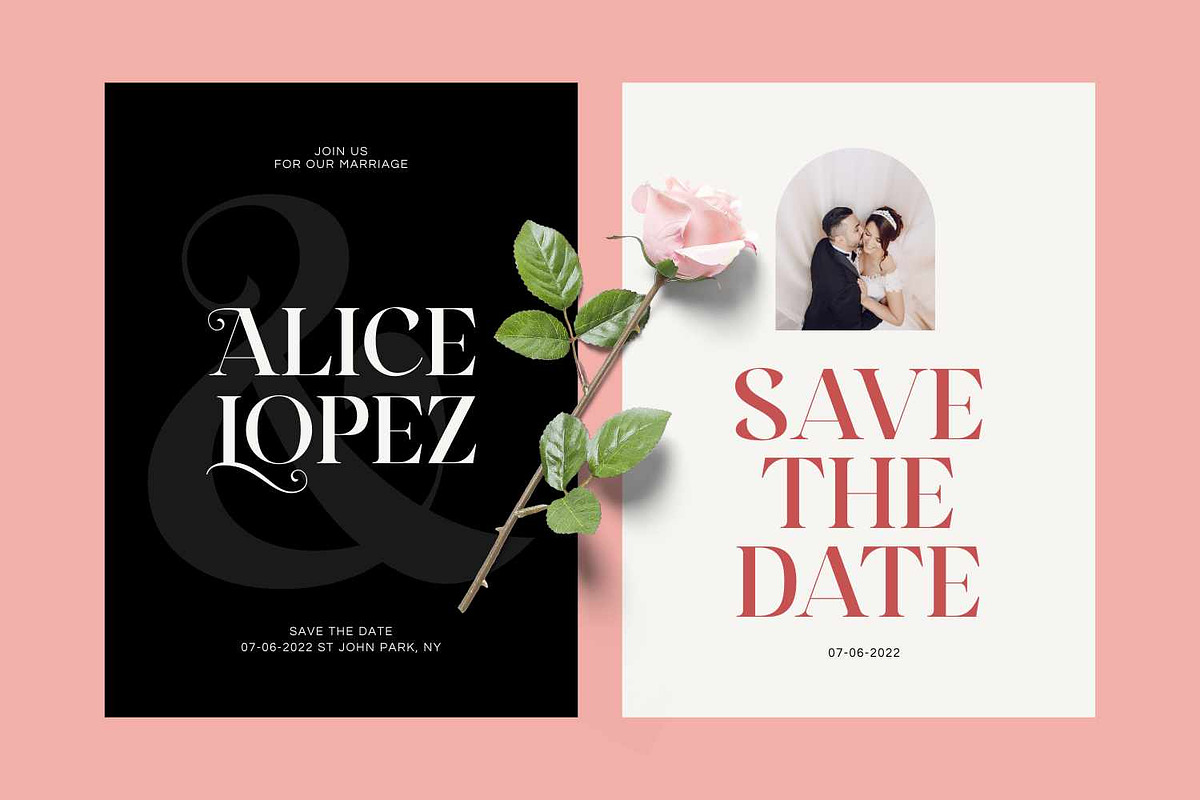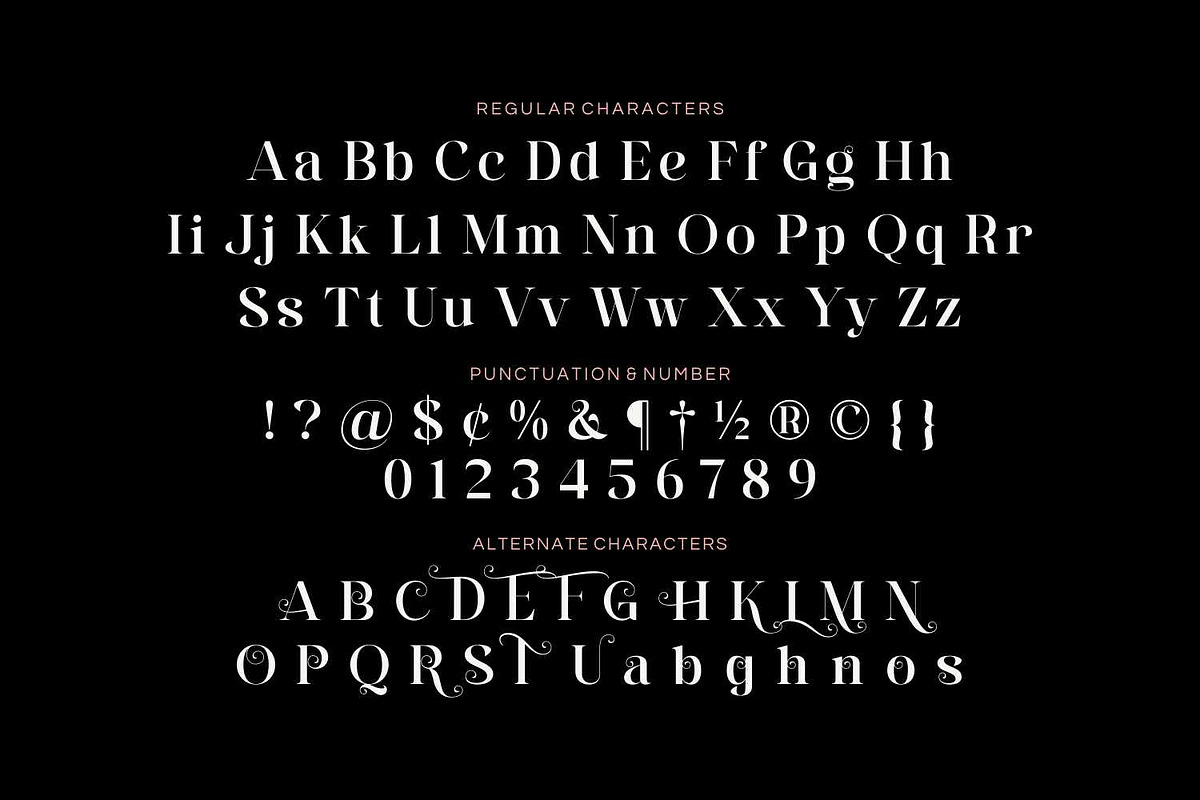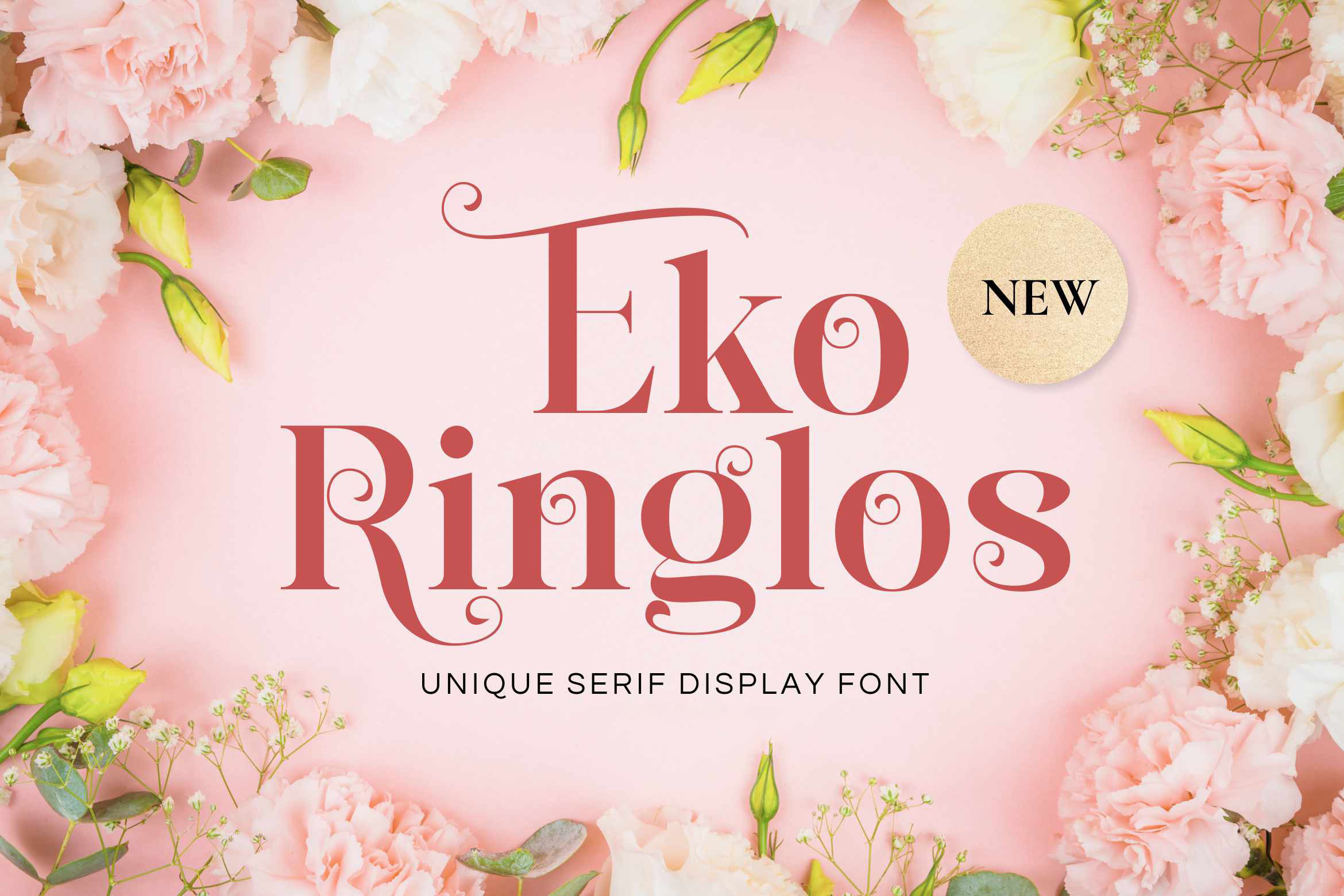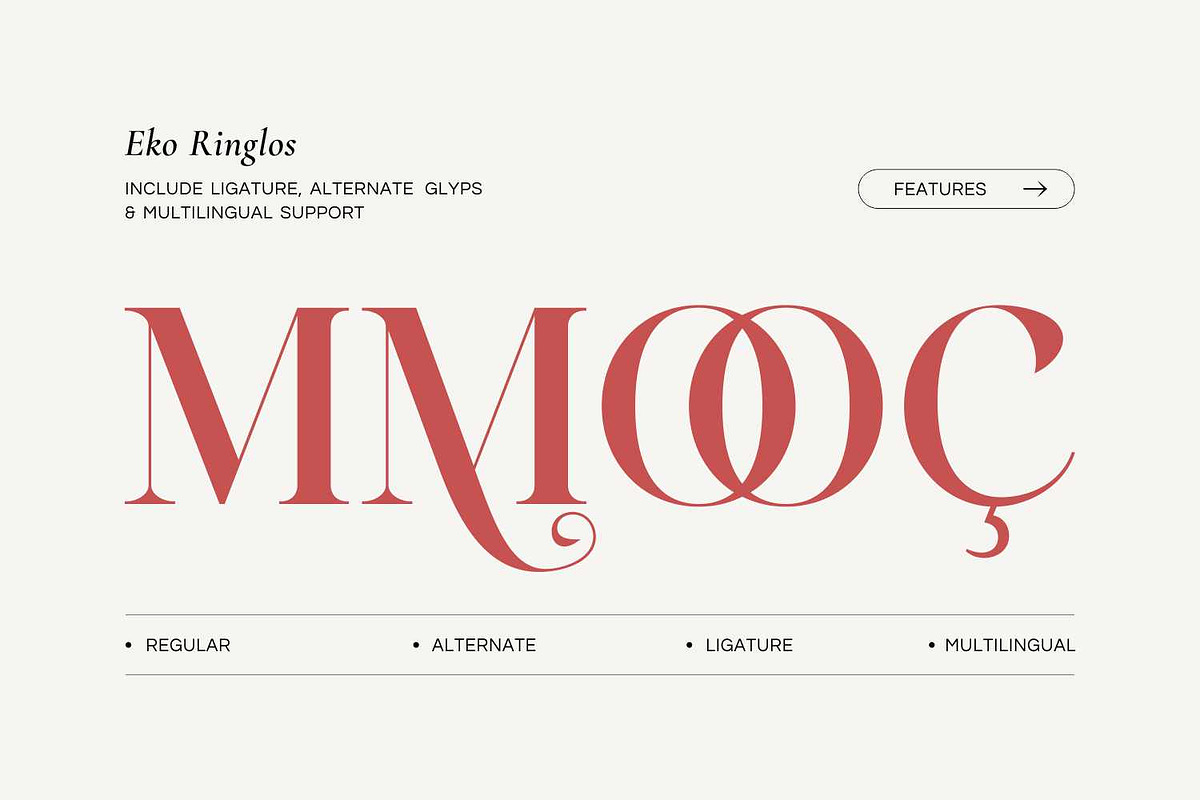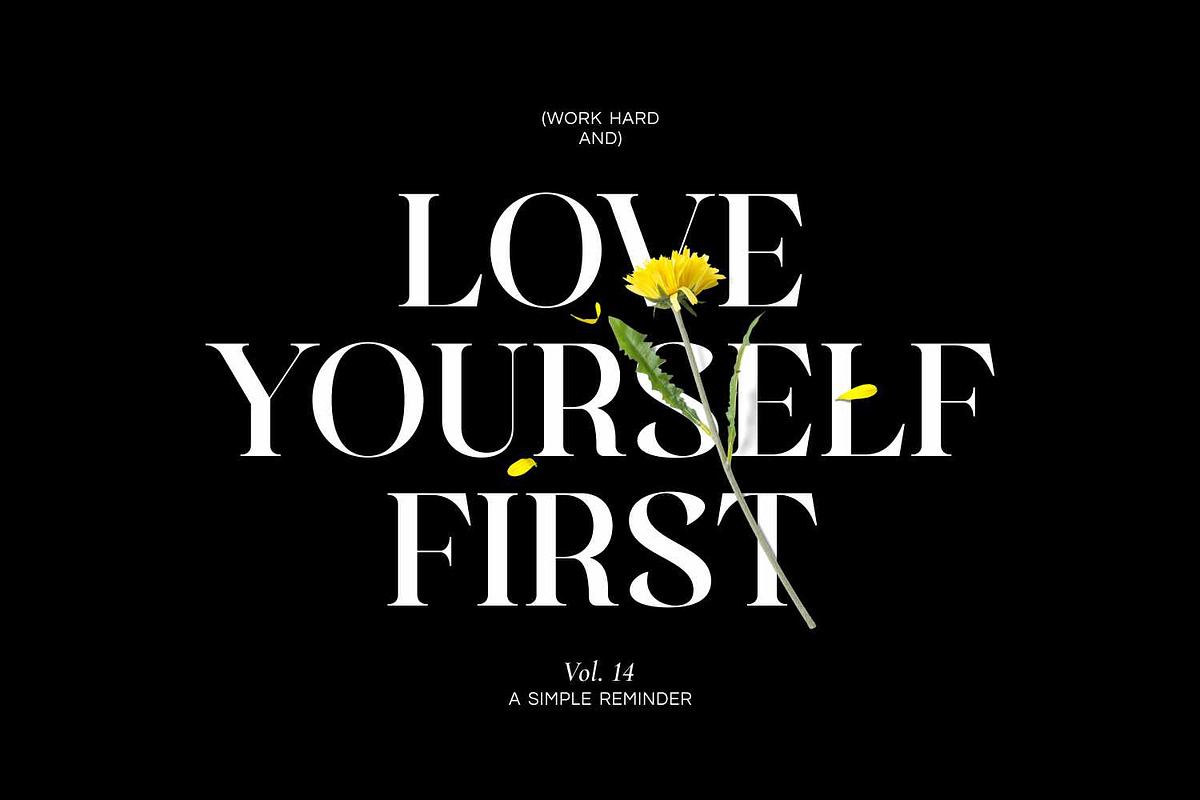
Eko Ringlos - Beautiful Serif Font
Introducing Eko Ringlos, a beautiful serif display font that masterfully blends classic grace with modern sophistication. Each letter is meticulously crafted sharp serifs with graceful curves and decorative swashes, creating a timeless aesthetic that feels both modern and classic.
From the minimalist chic of a high end brand's lookbook to the romantic charm of a wedding invitation, Eko Ringlos adapts effortlessly. It shines in editorial spreads, adds a touch of class to product packaging, premium branding, and elevates simple quotes into works of art. Perfect for designers seeking a font that is both functional and expressive, Eko Ringlos is your key to creating truly distinguished.
- Uppercase and Lowecase Characters.
- Numerals and Punctuations.
- Alternates and Ligatures.
- Multilingual Support.